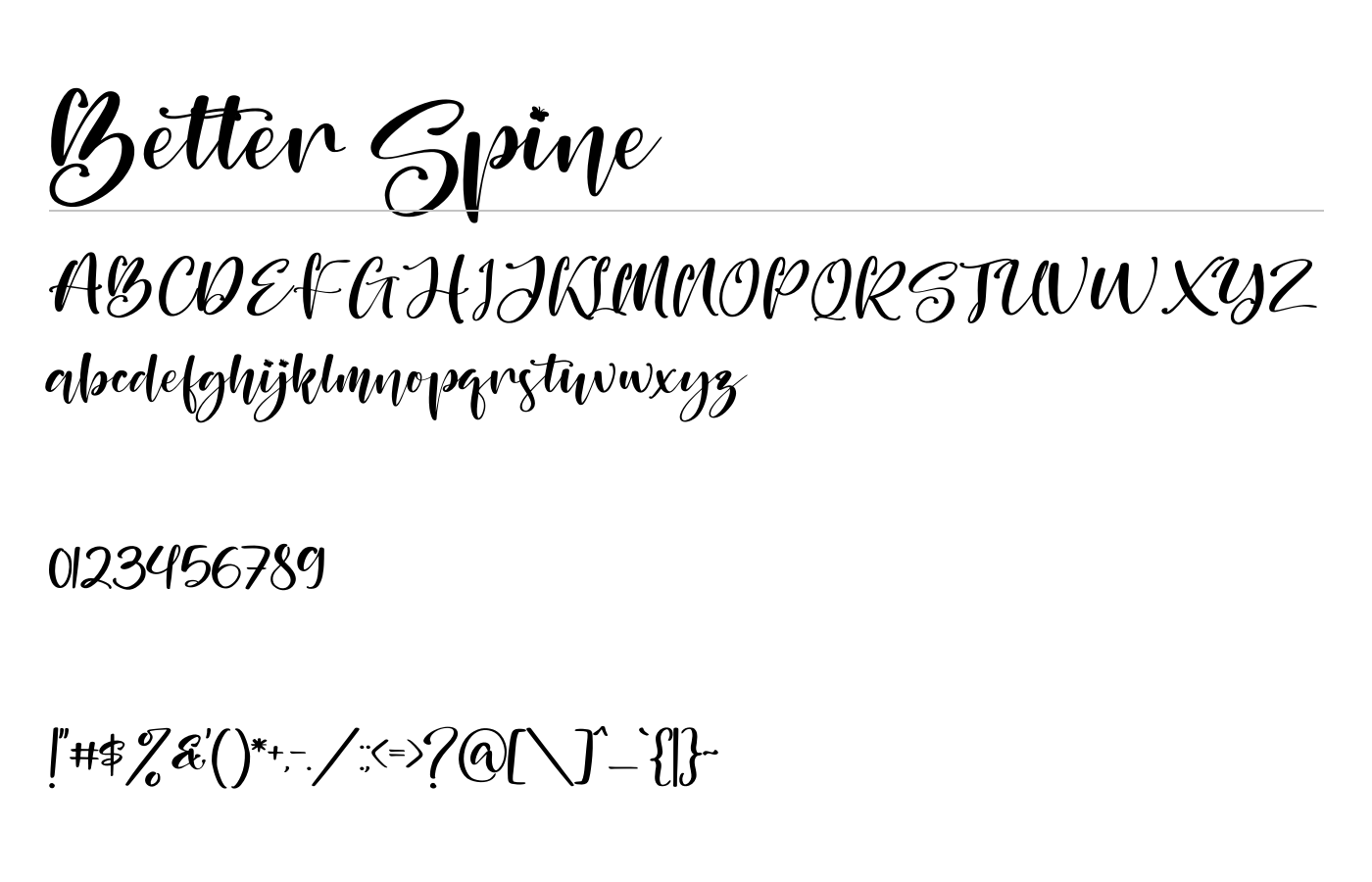
Better Spine is a stylish script font featuring elegant, flowing strokes with varying thickness that add a dynamic, hand-drawn feel. Its tall x-height and smooth curves make it perfect for branding, invitations, and creative headlines where a touch of sophistication and personality is desired. This font shines in designs that seek a modern yet graceful handwritten vibe.
Better Spine Font